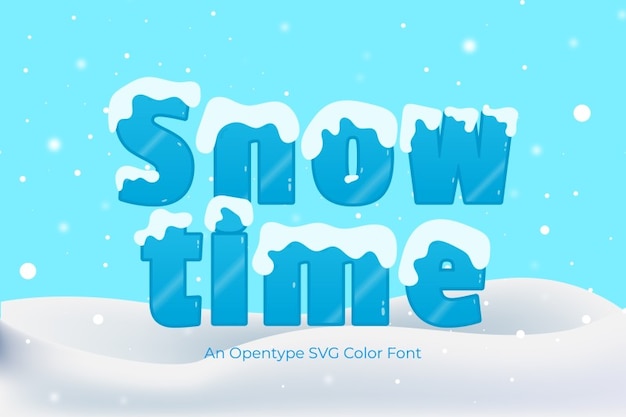
Snowtime font is like a cozy winter wonderland for your text, with decorative letters that glisten like ice and sparkle like fresh-fallen snowflakes. It's the perfect choice to add a touch of frosty charm to your designs. Each character feels like a delicate snowflake, turning your words into a picturesque winter scene. With Snowtime, your text becomes a decorative masterpiece, capturing the enchantment of a snowy day.